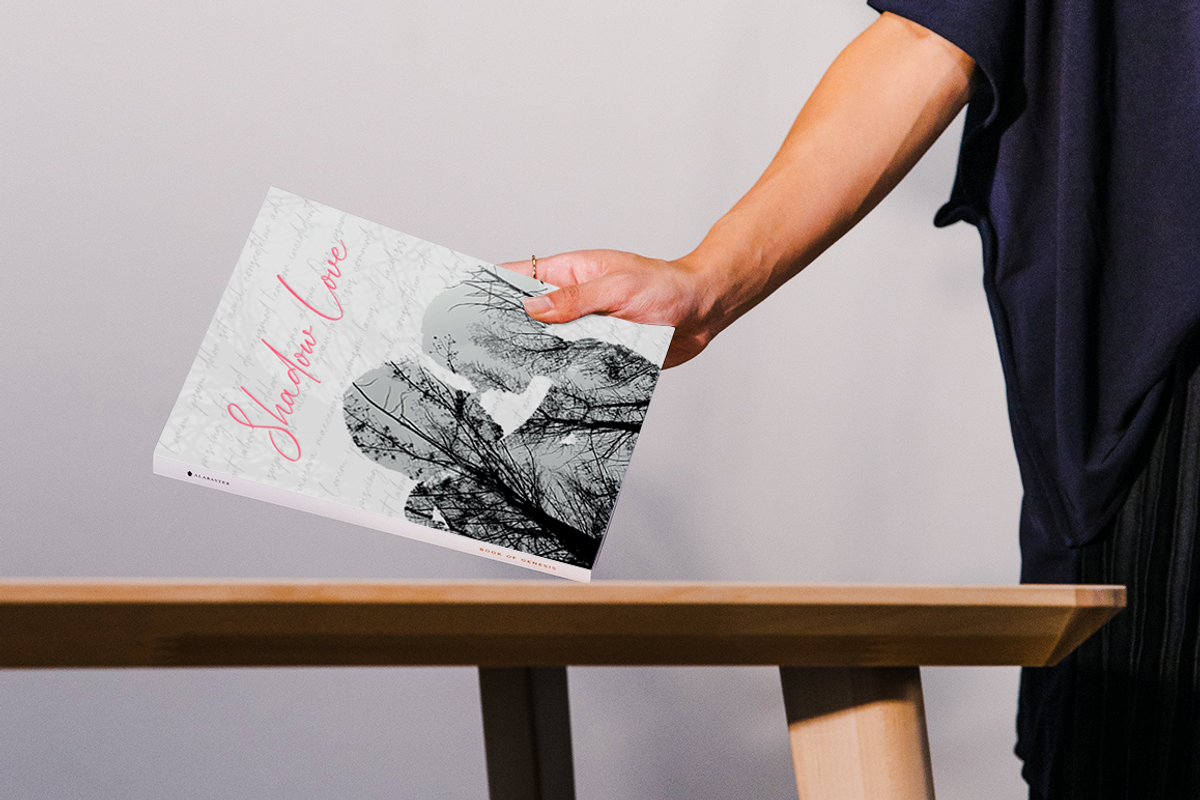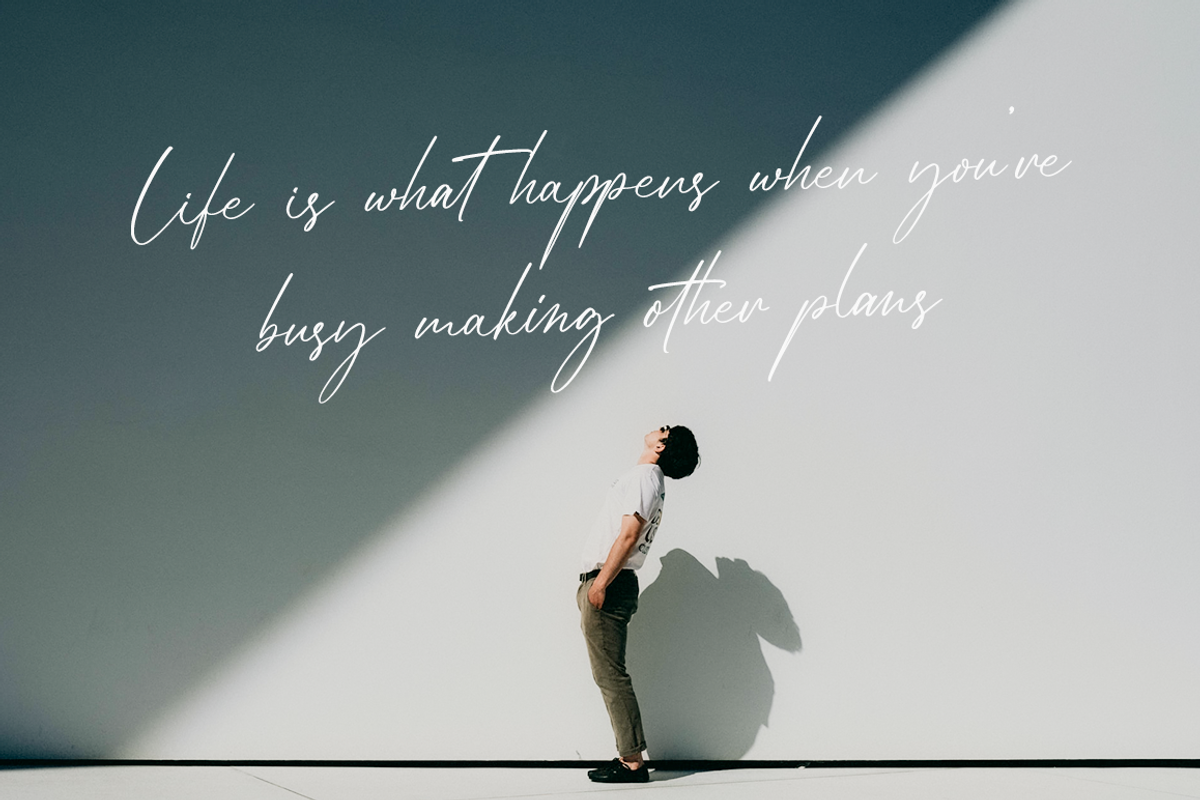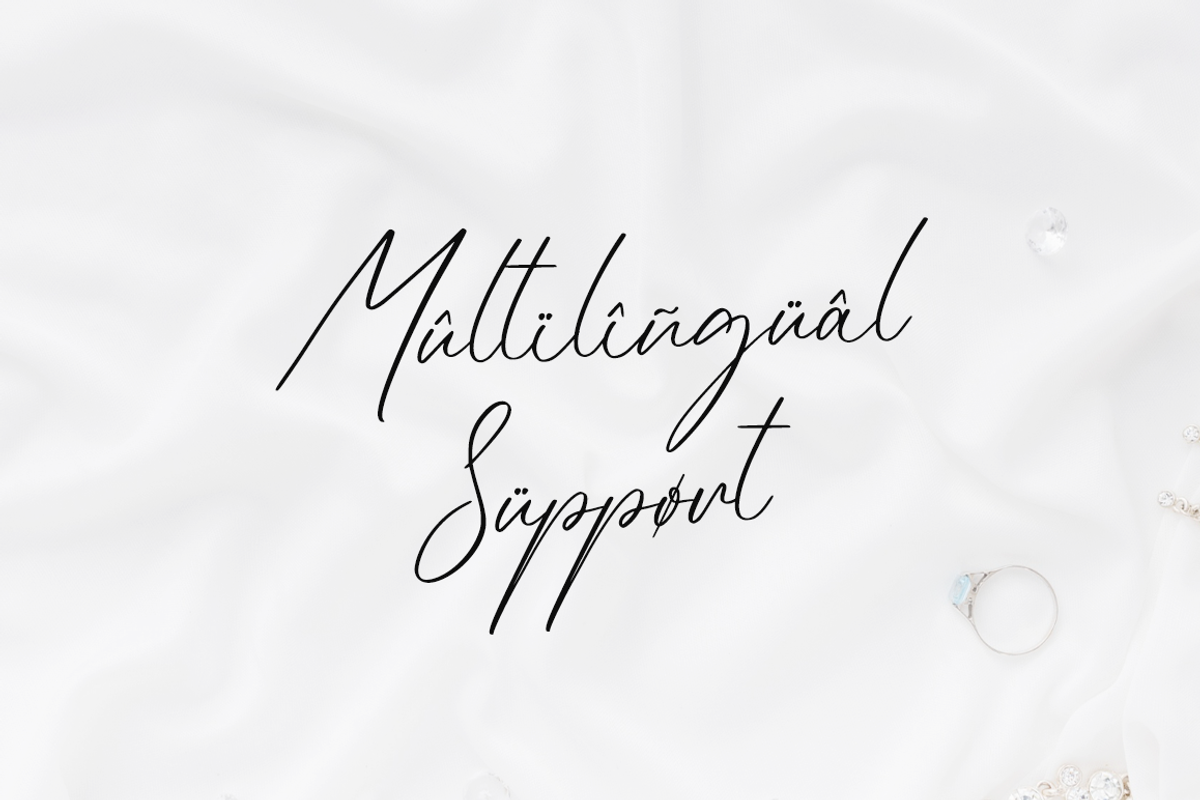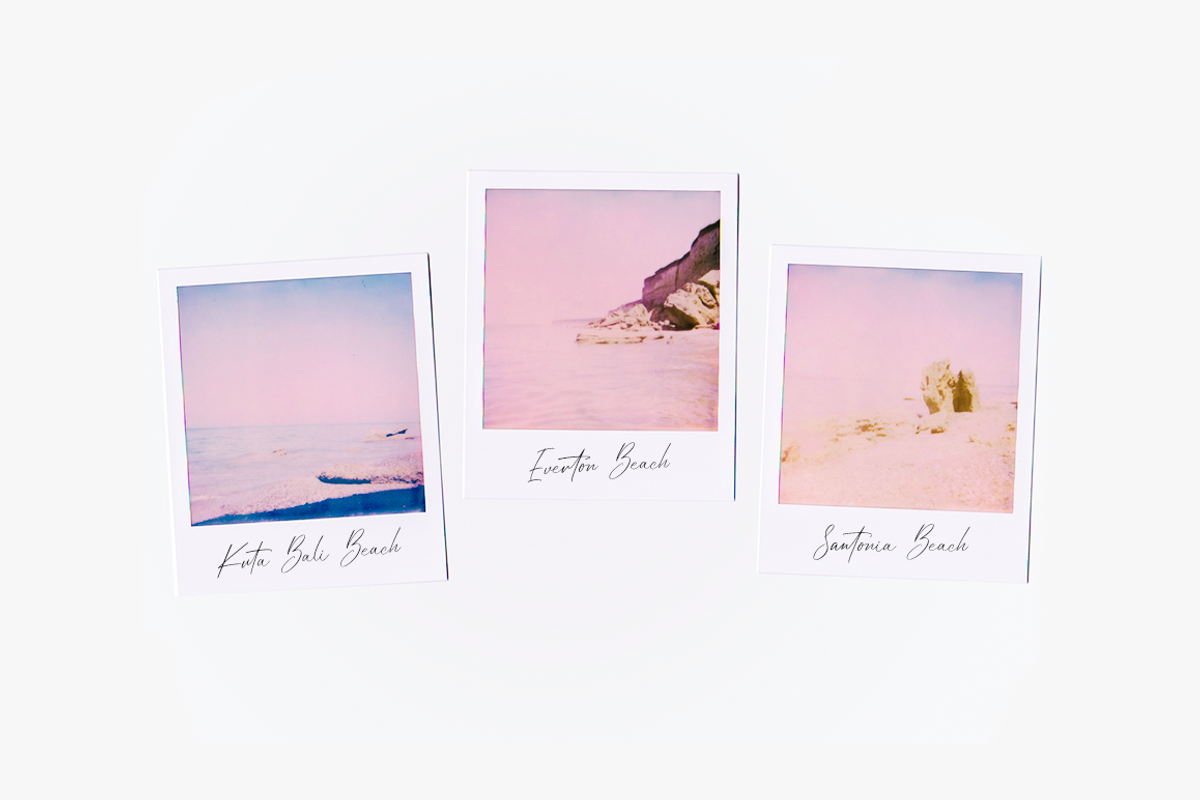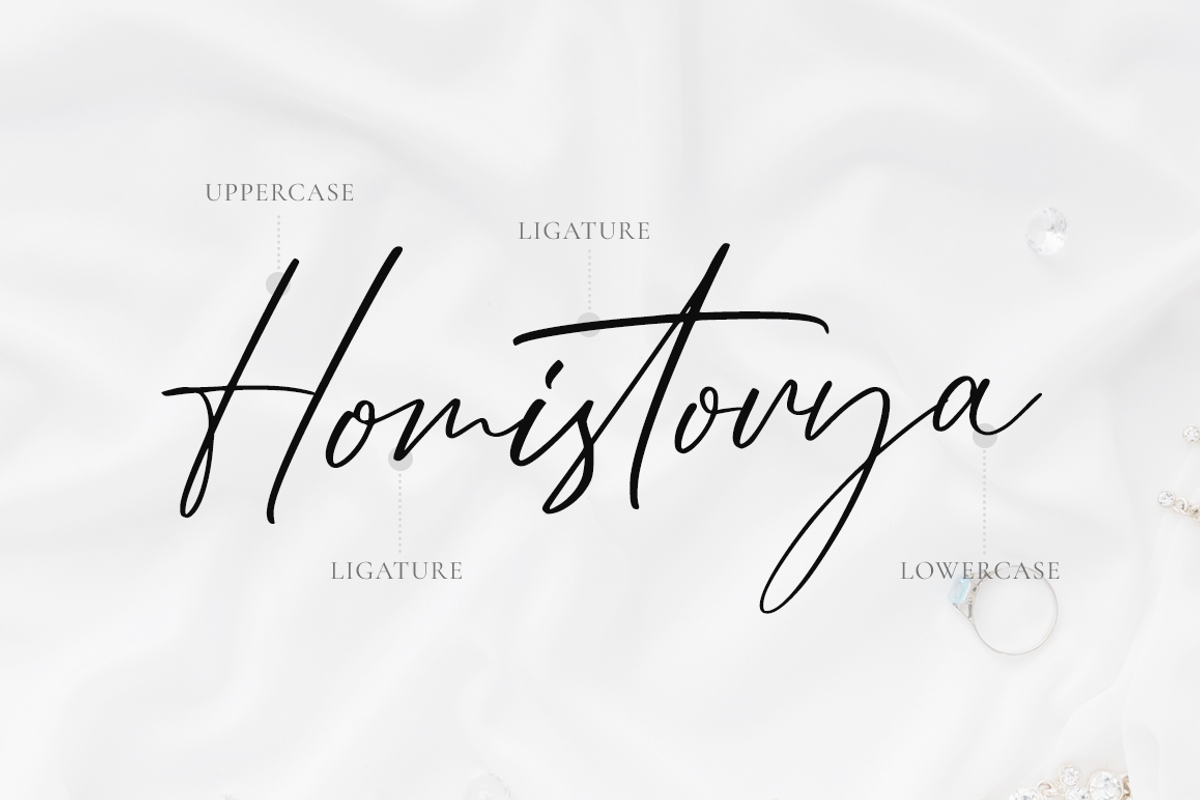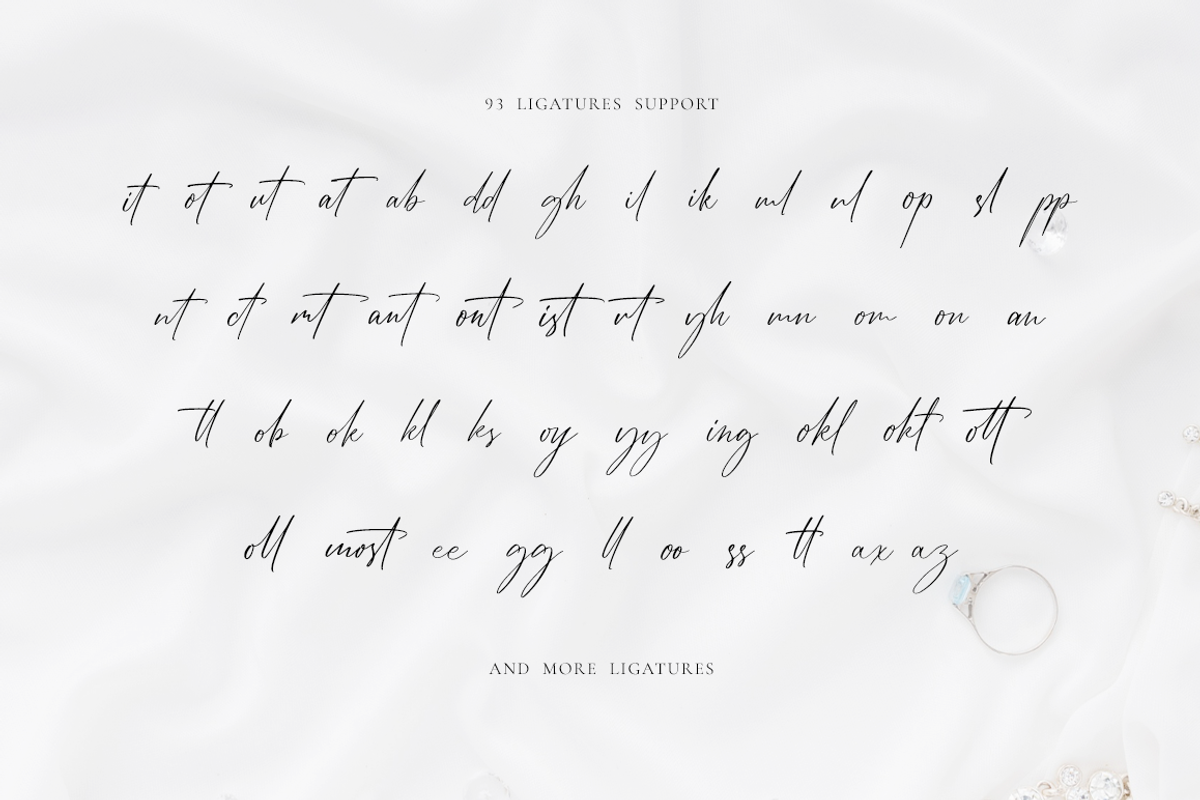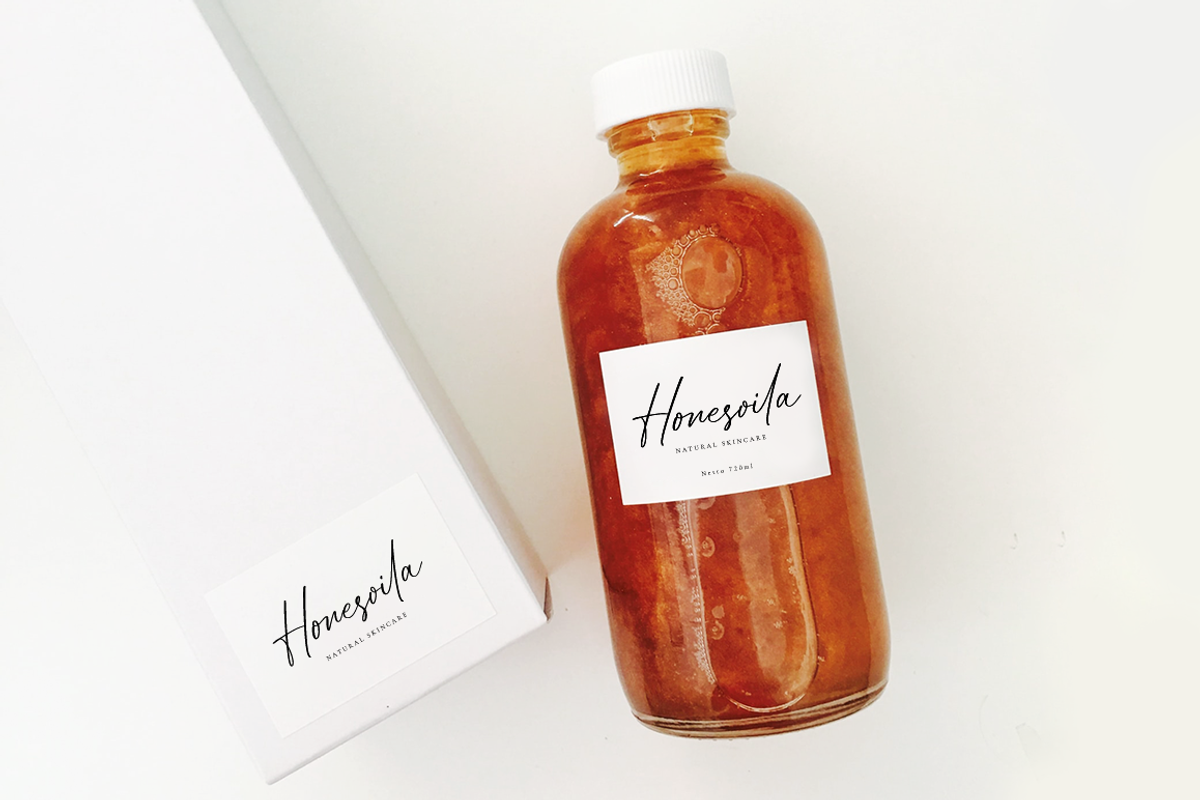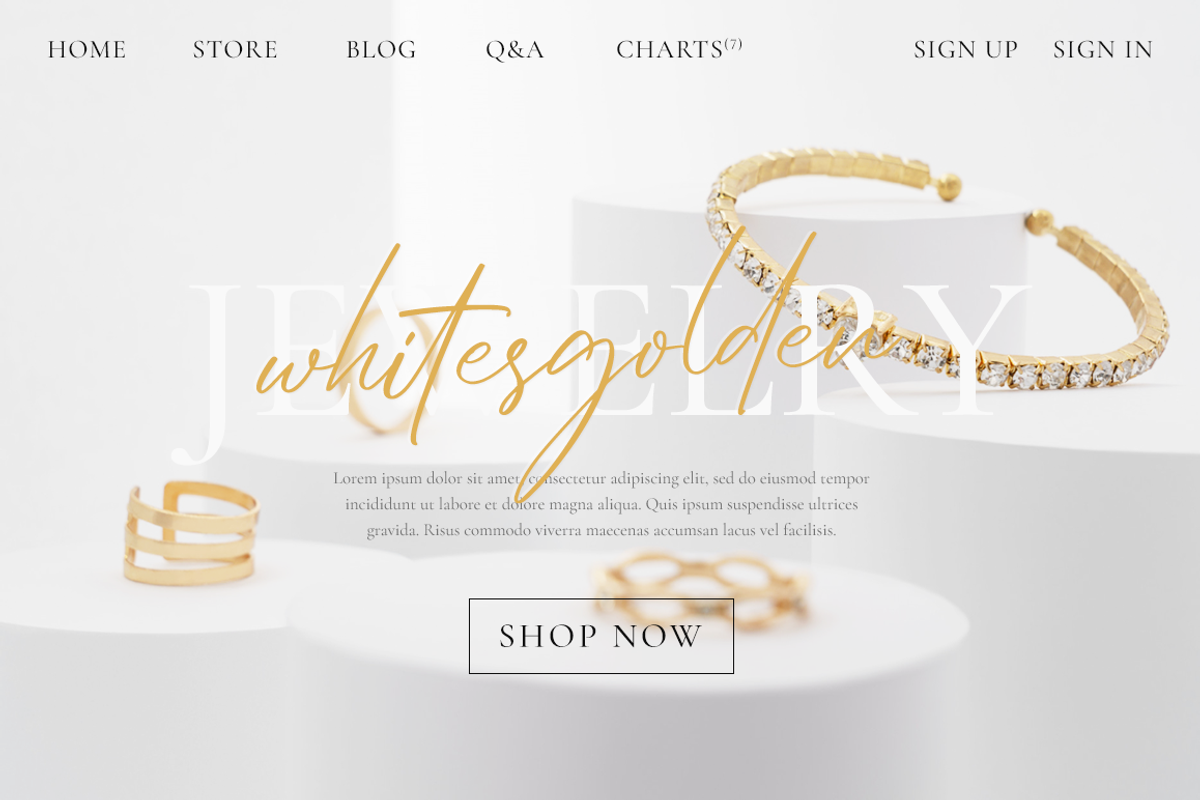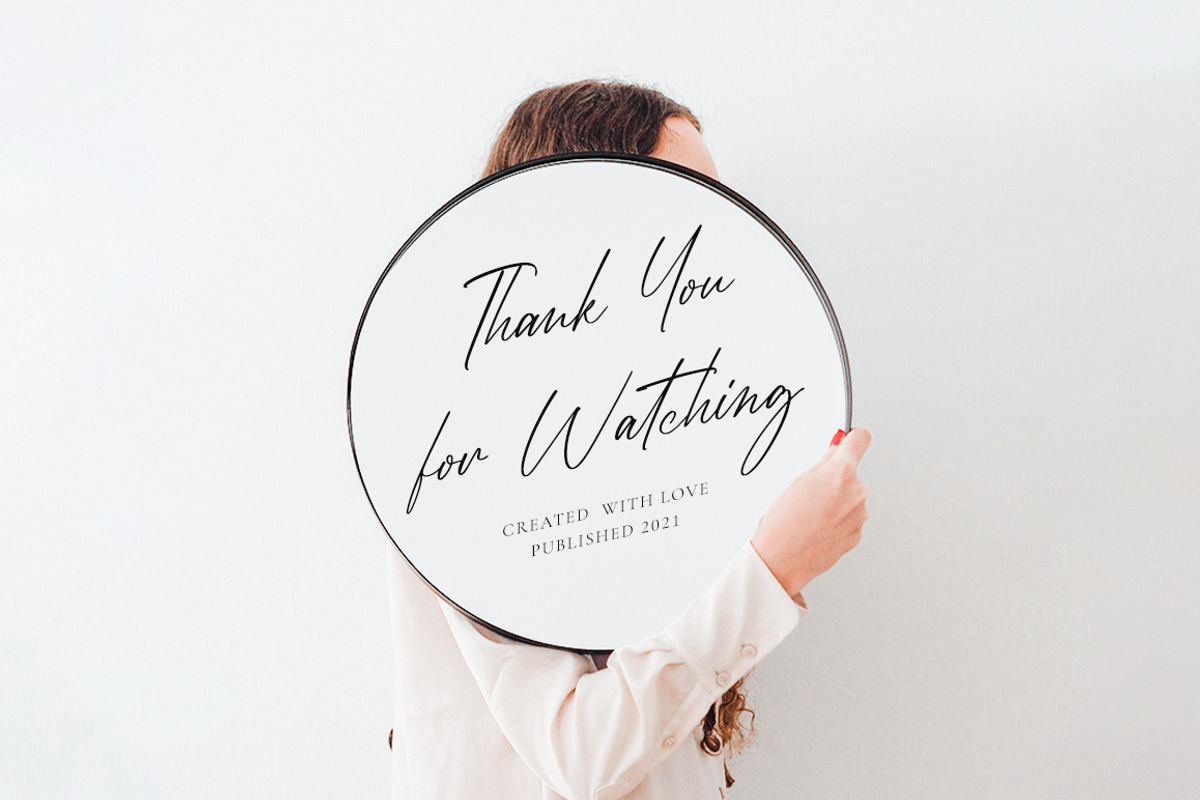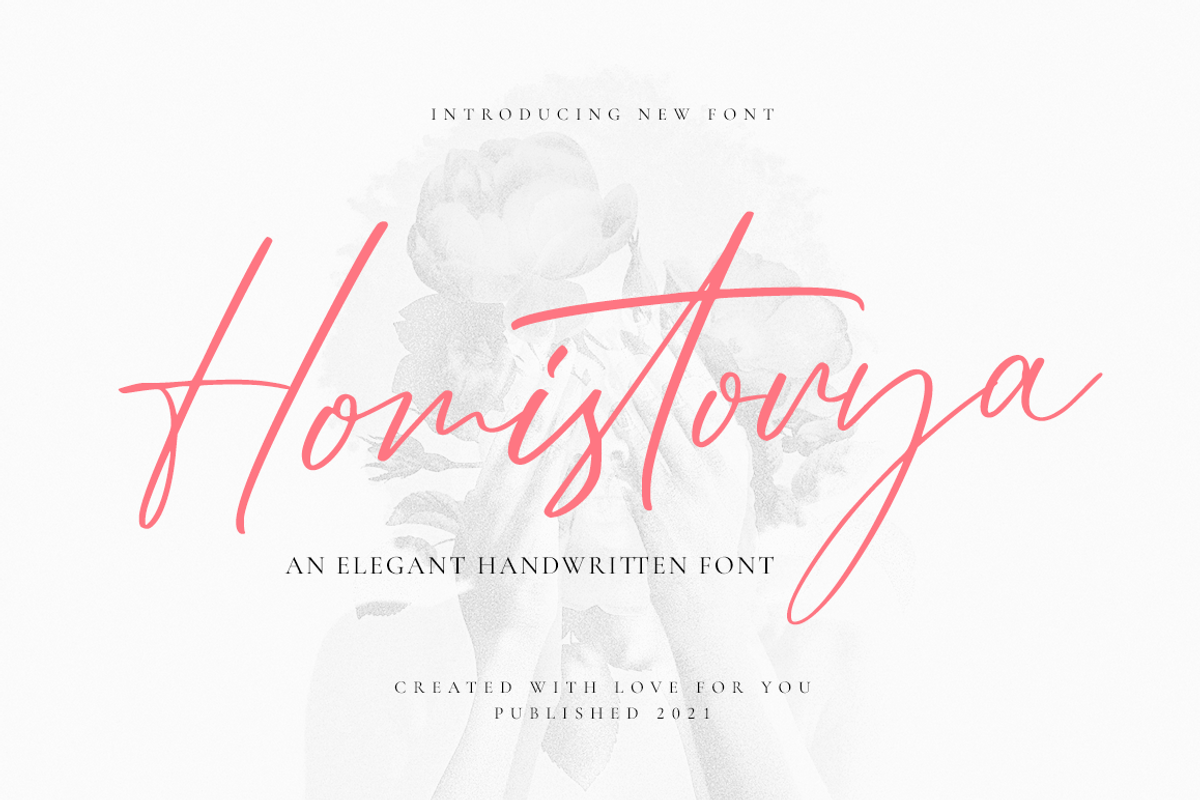
Homistorya - Wedding Font
Homistorya is an elegant and dainty handwritten font that features sweet and delicate swashes. This original look will appeal to a wide range of crafty ideas, from letterheads and titles, to stationery.